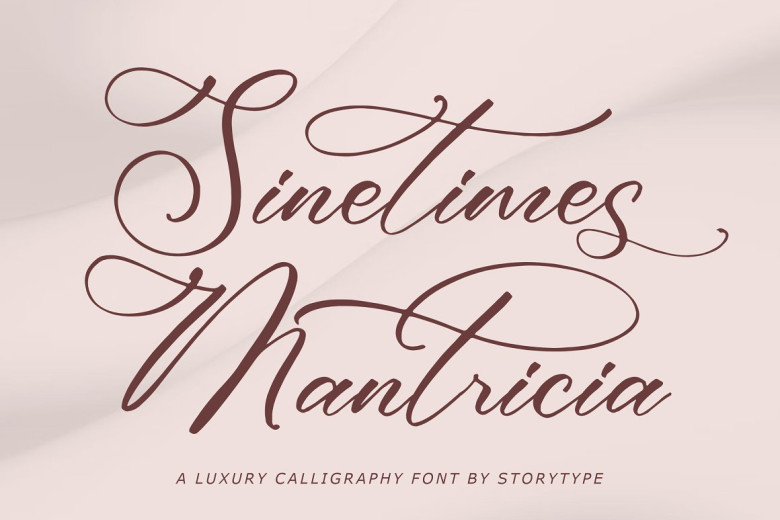
Sinetimes Mantricia Font
Sinetimes Mantricia is a Luxury Calligraphy Font. Sinetimes Mantricia is a luxury script that has its style and a modern look. This typeface is perfect for an elegant and luxury logo, book cover, movie title design, fashion brand, magazine, clothes, lettering, quotes, and so much more.
Sinetimes Mantricia Calligraphy Font